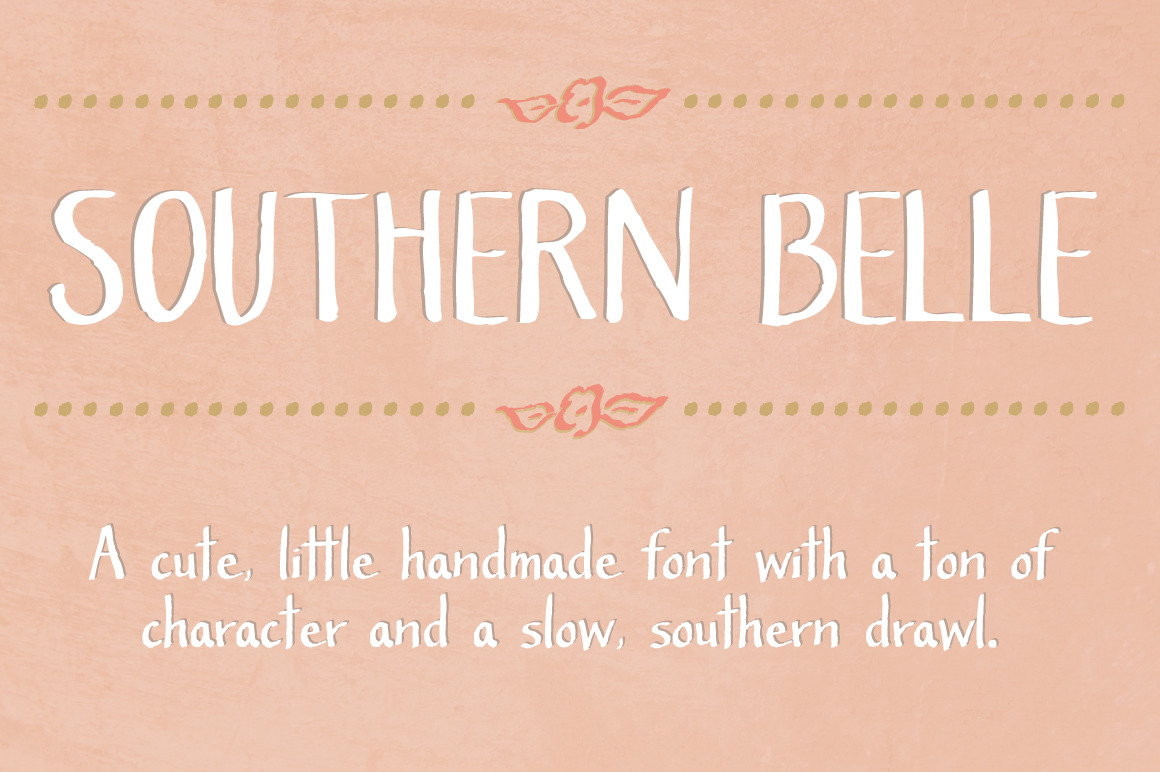
Southern Belle- A Cute Handmade Font
Southern Belle, a cute little handmade font with a ton of character and a slow, southern drawl, was inspired by sweet tea and southern blossoms. Its uppercase letterforms would be a great fit for logos, envelope addresses, and more! This Southern Belle font features repeating borders, and a ton of cute little doodles. (try using + + +, = = = , and _ to see borders repeat). To access all of the characters in this font, I recommend using the glyphs panel in Adobe Illustrator.